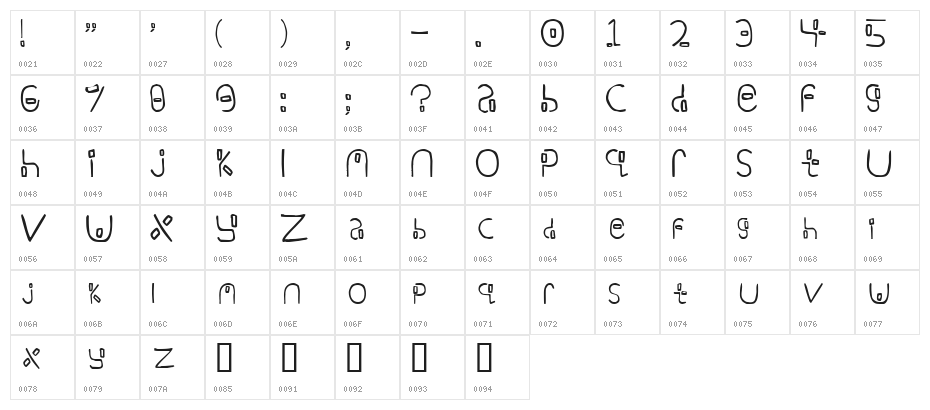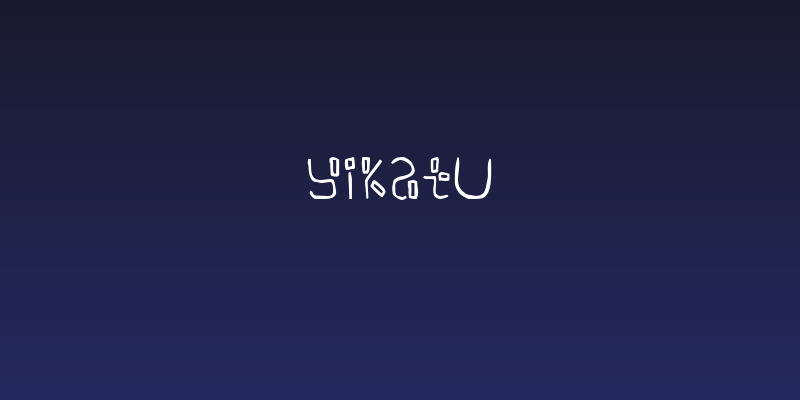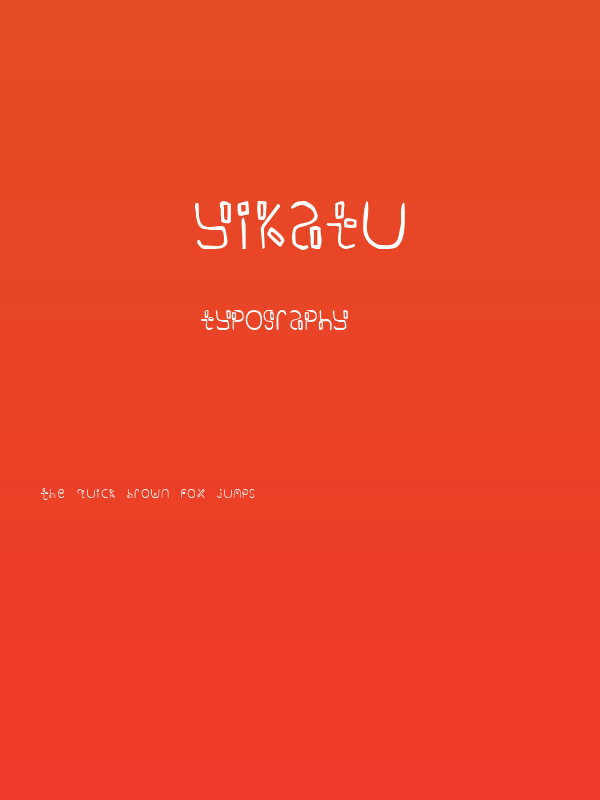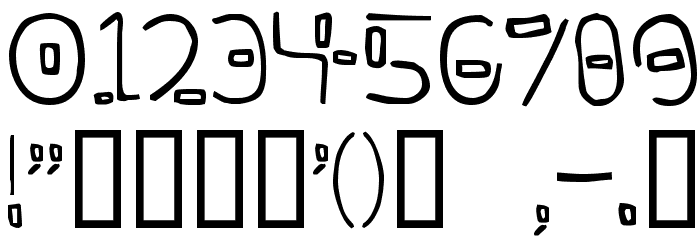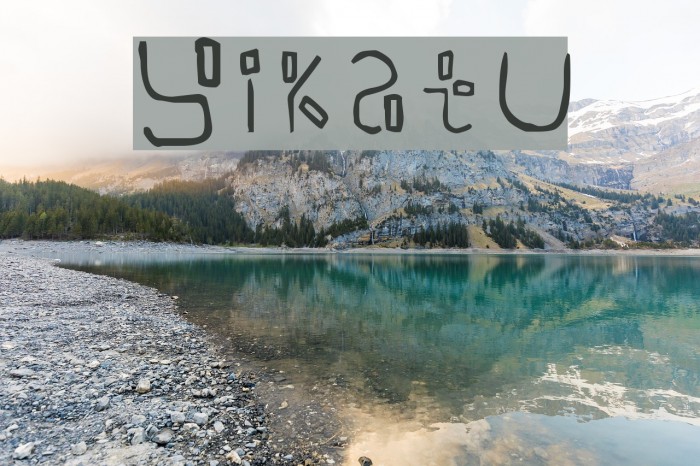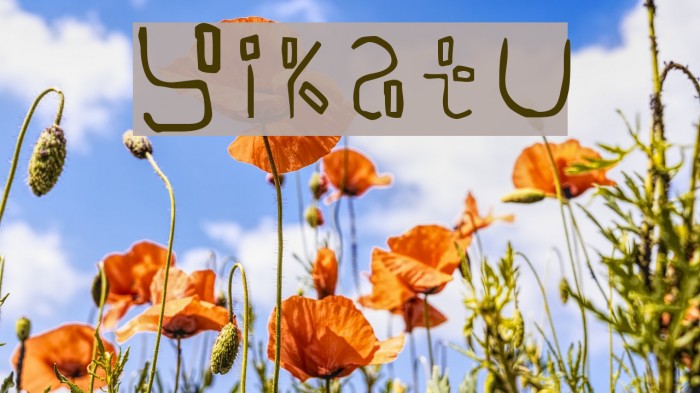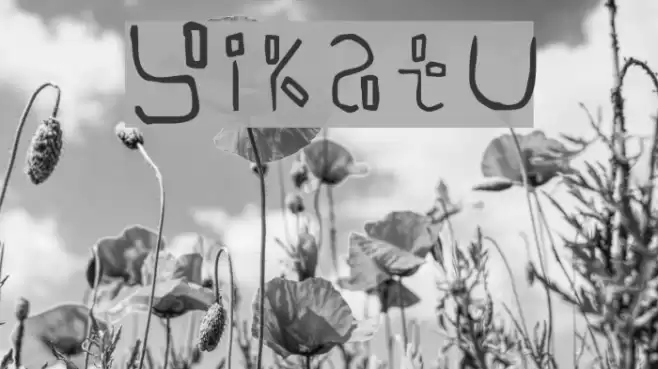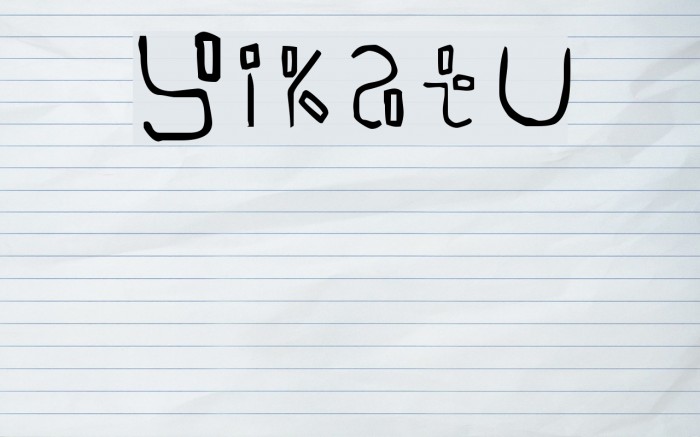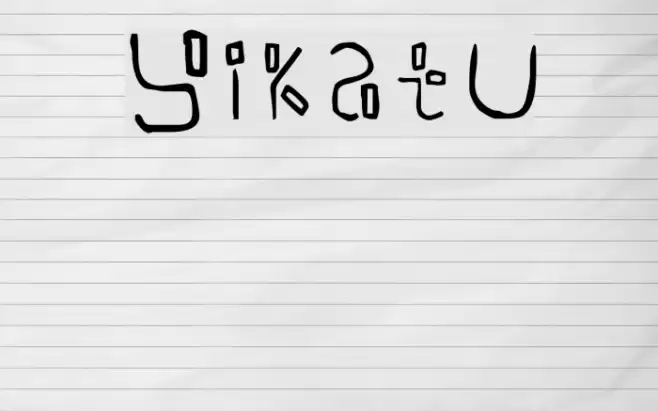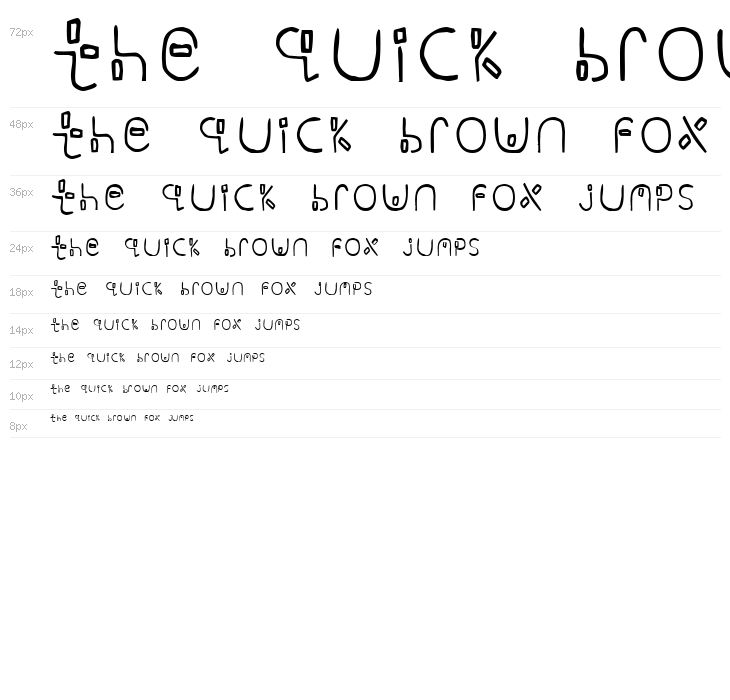
Yikatu Font
Yikatu Description
This font exhibits a unique and playful design, characterized by its rounded and slightly irregular shapes. The letters have a hand-drawn quality, with varying stroke thickness that adds a whimsical touch. The uppercase and lowercase letters maintain a consistent style, with some characters featuring unexpected curves and angles that enhance its quirky appearance. The numerals and special characters follow the same design principles, ensuring a cohesive look across all glyphs. This font's distinctive style makes it stand out, offering a fresh and creative approach to typography.
| Overall Style | Playful, Artistic |
| Proposed Projects | Ideal for children's books, creative posters, playful branding, and artistic projects. |